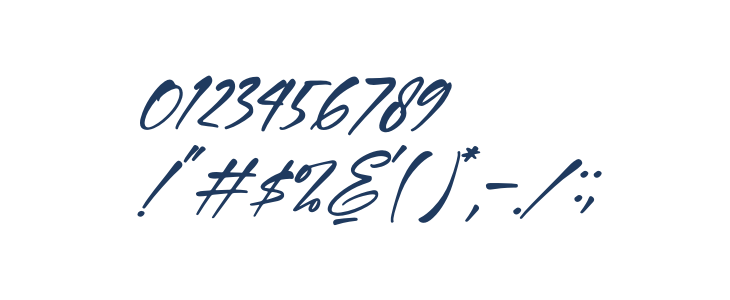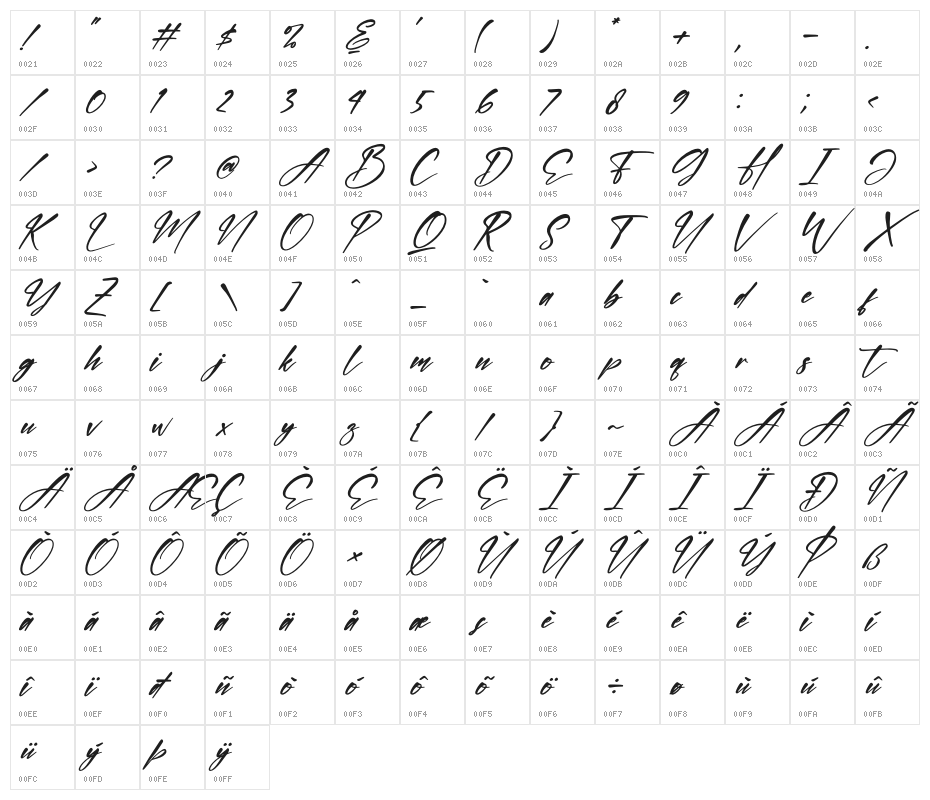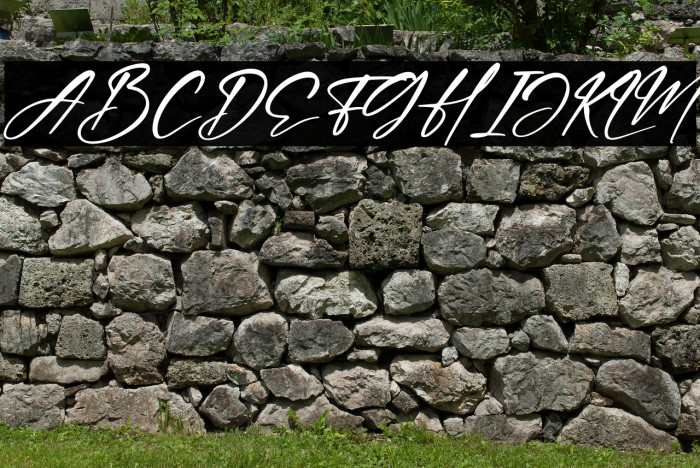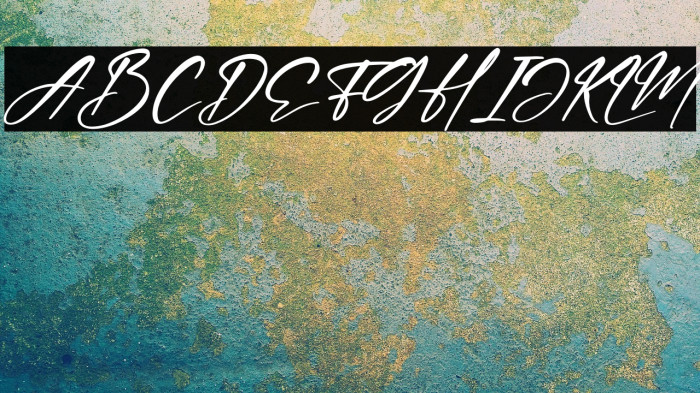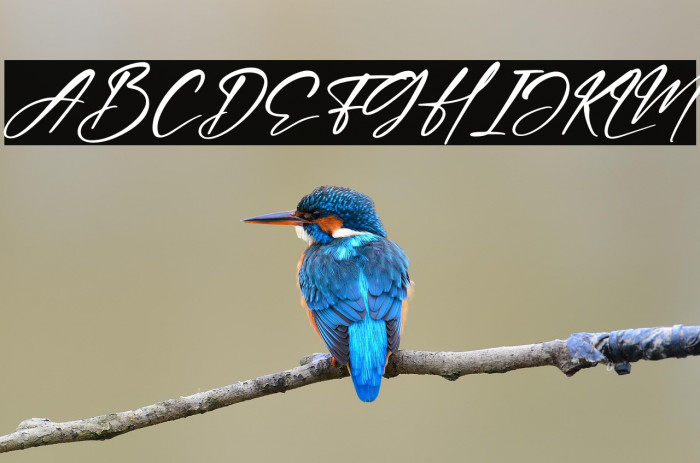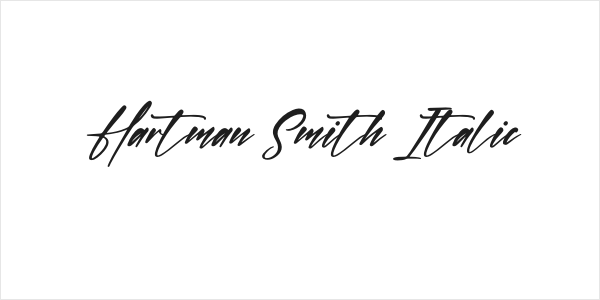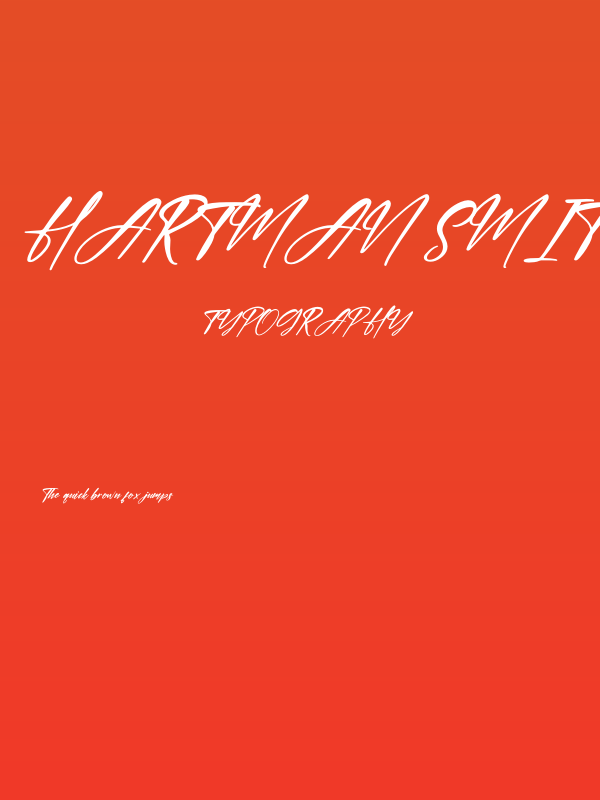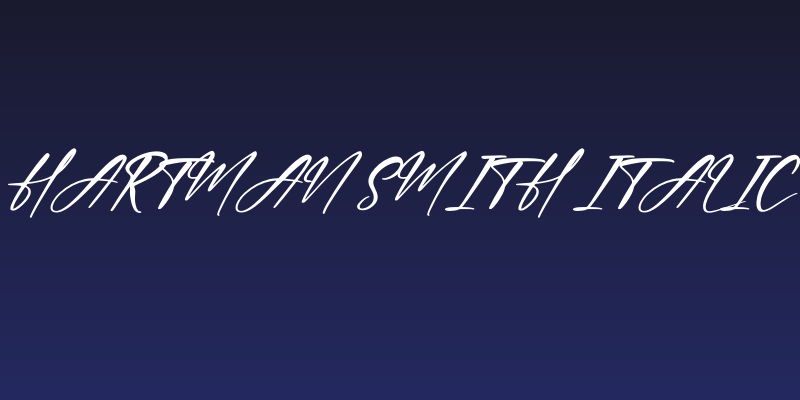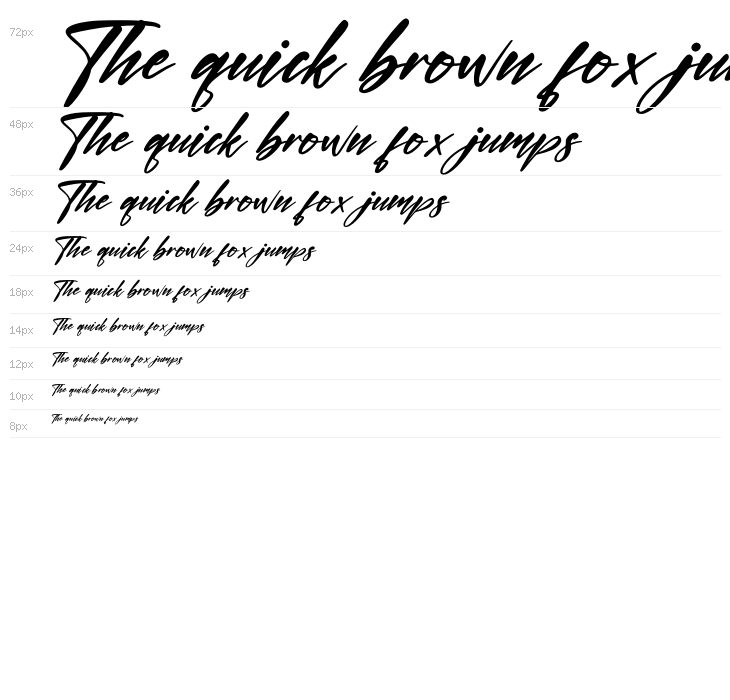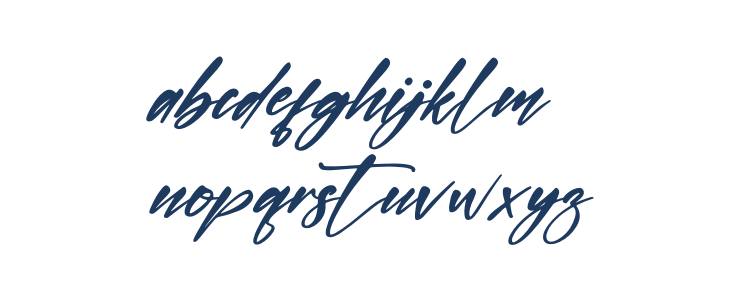
Hartman Smith Italic Font
Hartman Smith Italic Description
This font features a flowing, cursive style with elegant, sweeping strokes that convey a sense of sophistication and fluidity. The characters are connected, creating a seamless and continuous look that is both dynamic and graceful. The uppercase letters are tall and slightly slanted, while the lowercase letters maintain a consistent rhythm and flow. The numbers and special characters are designed to complement the overall aesthetic, with similar curves and angles. This font exudes a sense of elegance and is perfect for projects that require a touch of class and refinement.